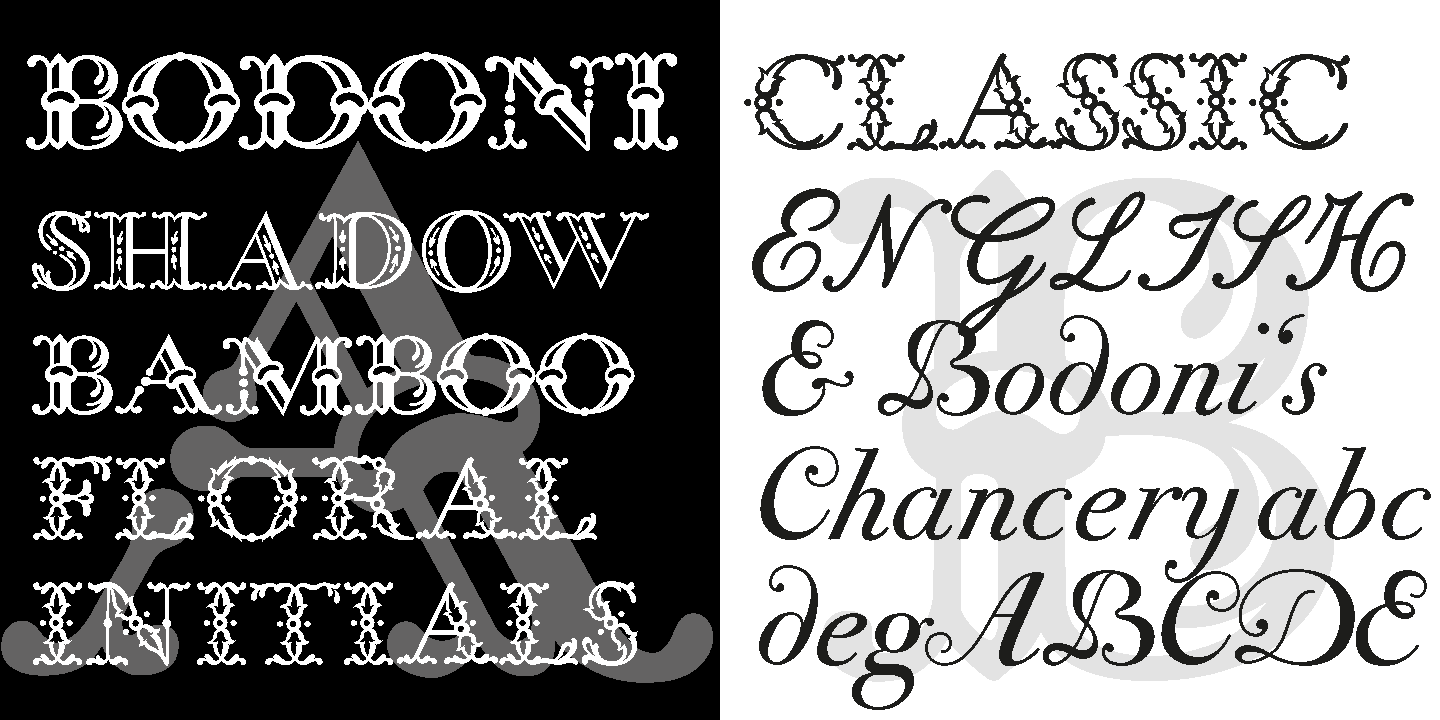
Bodoni Classic Initials Font is perfect for luxury monogram designs, elegant wedding invitations, high-end fashion branding, premium stationery, classical book chapter openers, sophisticated logo marks, aristocratic family crests, and exclusive boutique identities.
Bodoni Classic Initials Font is exciting because it embodies the timeless grandeur and neoclassical elegance of Giambattista Bodoni's legendary typography through ornate decorative capitals that transform simple letters into works of art. Its exquisite detailing and regal presence make it the perfect choice for brands seeking to convey luxury, heritage, and uncompromising sophistication.
The Bodoni Classic Initials Font family includes multiple ornamental variations: Bodoni Classic Initials Regular, Bodoni Classic Initials Ornate, Bodoni Classic Initials Flourished, Bodoni Classic Initials Shadow, Bodoni Classic Initials Outline, and Bodoni Classic Initials Engraved, along with decorative borders and classical ornaments, providing designers with comprehensive tools for creating prestigious monogram and initial letter designs.
When seeking prestigious decorative typography solutions, Bodoni Classic Initials Font Free Download emerges as the ultimate choice for designers working on luxury projects that demand the highest levels of typographic artistry and classical refinement. This magnificent typeface captures the essence of 18th-century printing excellence while offering the technical precision that contemporary luxury brands require. The font's elaborate decorative elements and masterful proportions create immediate recognition of quality and exclusivity among discerning clientele.
Luxury brand designers consistently choose Bodoni Classic Initials Font for projects requiring authentic classical elegance and prestigious visual impact. Its meticulously crafted letterforms feature ornamental details that work exceptionally well in both intimate personal stationery and grand architectural applications. The font's ability to convey aristocratic heritage and artistic sophistication while maintaining perfect legibility makes it invaluable for comprehensive luxury brand identity systems in fashion, hospitality, and premium lifestyle sectors.
Whether you're developing luxury hotel identities, creating exclusive fashion monograms, or designing prestigious event materials, Bodoni Classic Initials Font delivers the classical magnificence and aristocratic appeal that resonates with luxury consumers who appreciate timeless artistry and exceptional craftsmanship. Its historical significance and unparalleled elegance ensure your designs achieve the prestigious status that defines truly exceptional luxury brands.